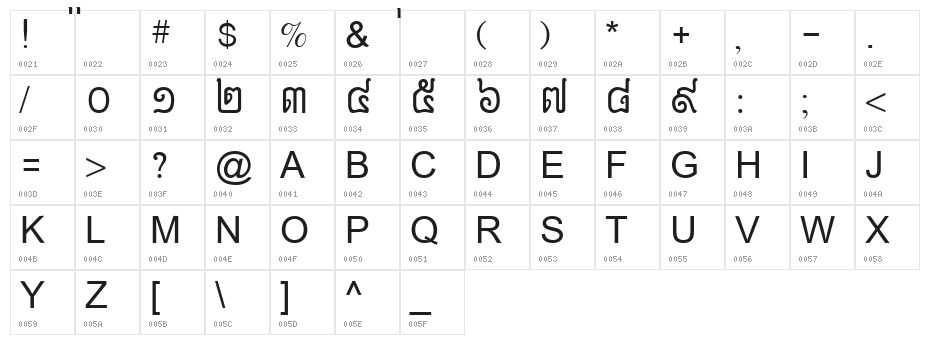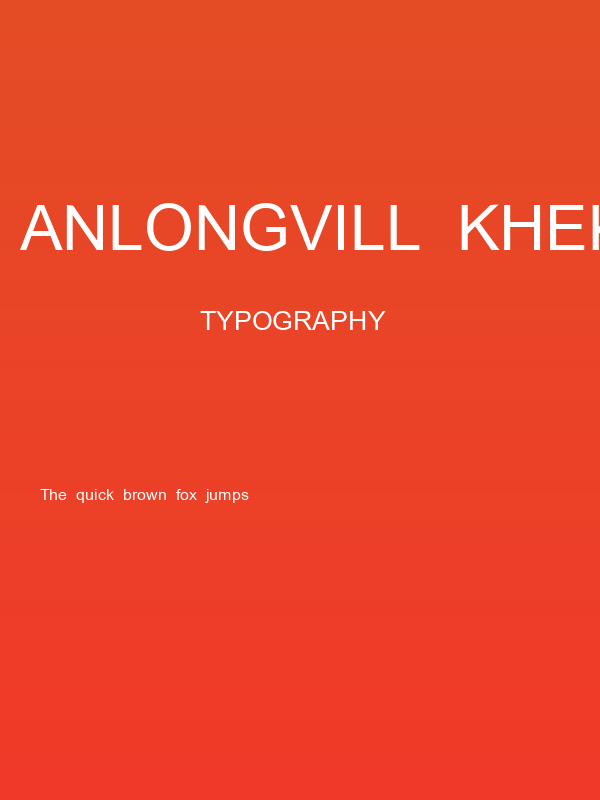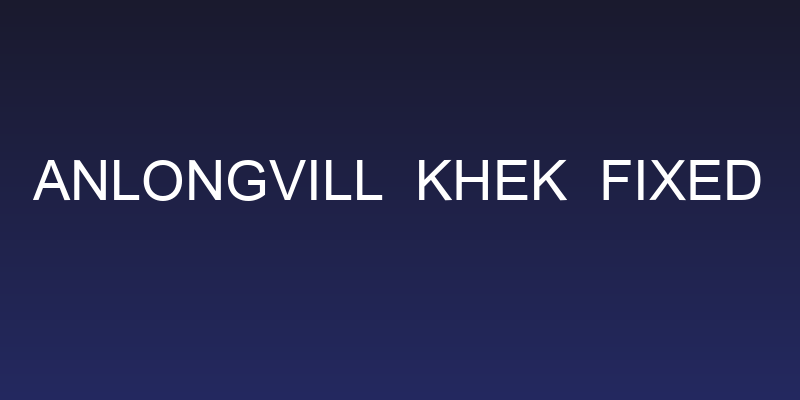
Anlongvill Khek Fixed Font
Anlongvill Khek Fixed Description
This font features a clean and modern sans-serif design with uniform stroke widths, providing a minimalist and contemporary appearance. The uppercase and lowercase letters are well-proportioned, offering a balanced and harmonious look. The numerals and special characters maintain the same clean aesthetic, ensuring consistency across all text elements. The overall design is straightforward, making it highly legible and versatile for various applications. Its simplicity and clarity make it suitable for both digital and print media, where readability is a priority.